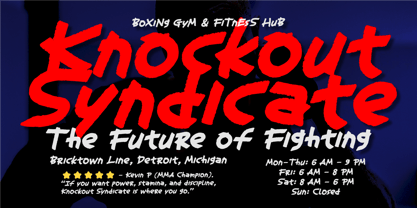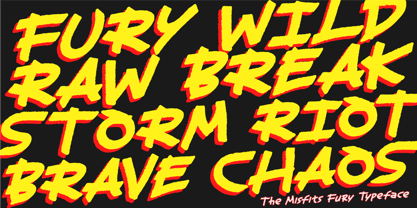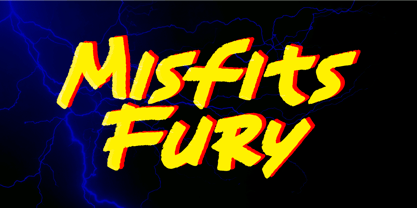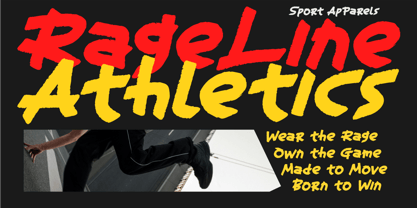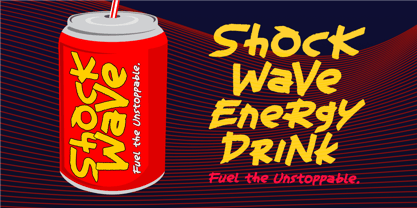
Misfit Fury
by Epiclinez
The Misfit Fury Font Family was designed by Aldy Sidik and published by Epiclinez. Misfit Fury contains 1 styles. More about this family
The Misfit Fury is a raw, high-impact brush display font built for creators who want intensity in every letter. Its rough edges, wild strokes, and rebellious texture make it perfect for posters, sports branding, streetwear, album covers, action titles, and anything that needs bold attitude. Designed with fast, energetic brush lines, The Misfit Fury brings unstoppable motion to your visuals—loud, gritty, and unapologetically fierce. Add power to your typography and let your message hit harder with this expressive brush font from Epiclinez.